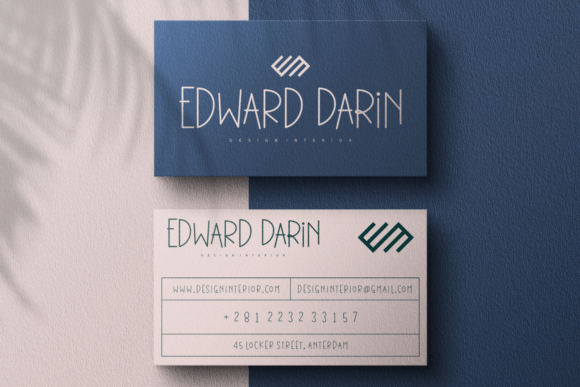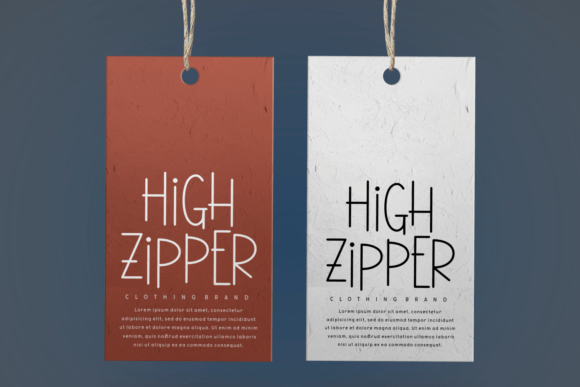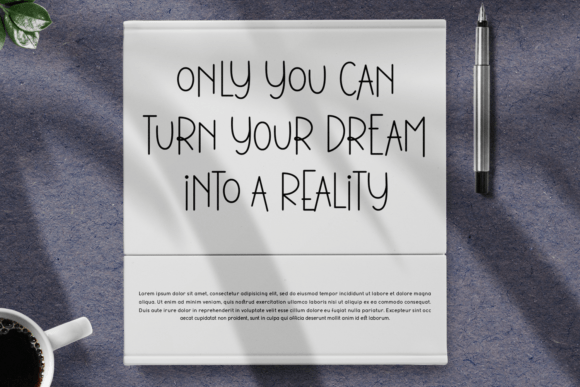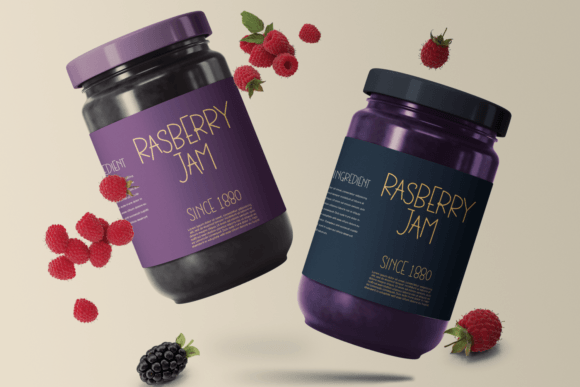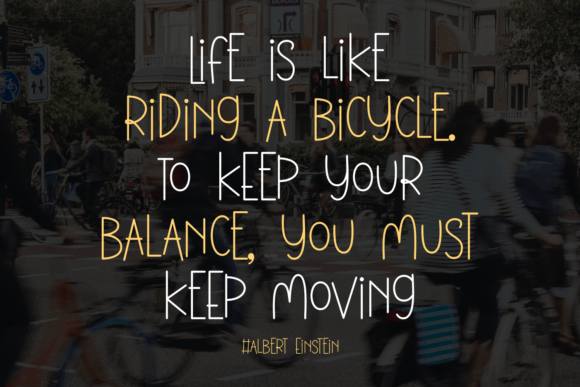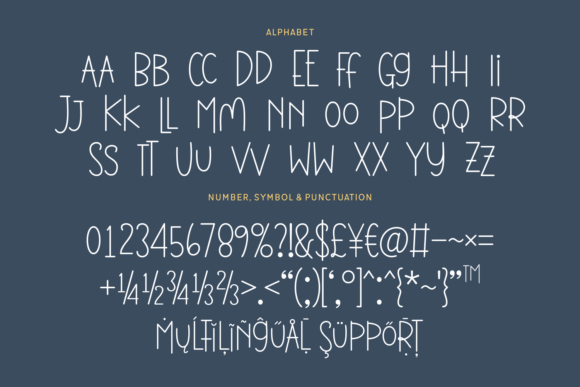
Introduction to Berath Kicker Font
Berath Kicker is a playful and modern monoline handwritten font.
Add a fun and quirky note to your creations with this thin-lettered typeface You can use it for business cards, invitations, labels, packaging, and more.
Key Features of Berath Kicker Font